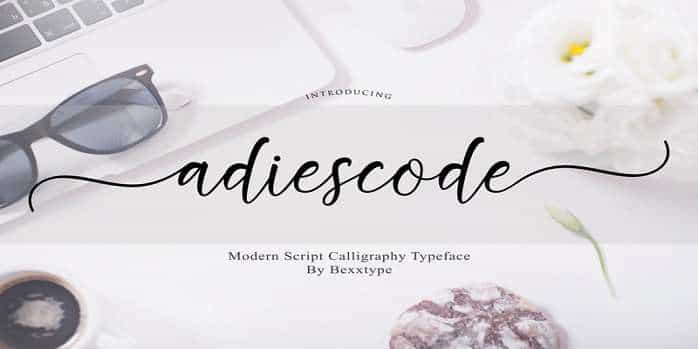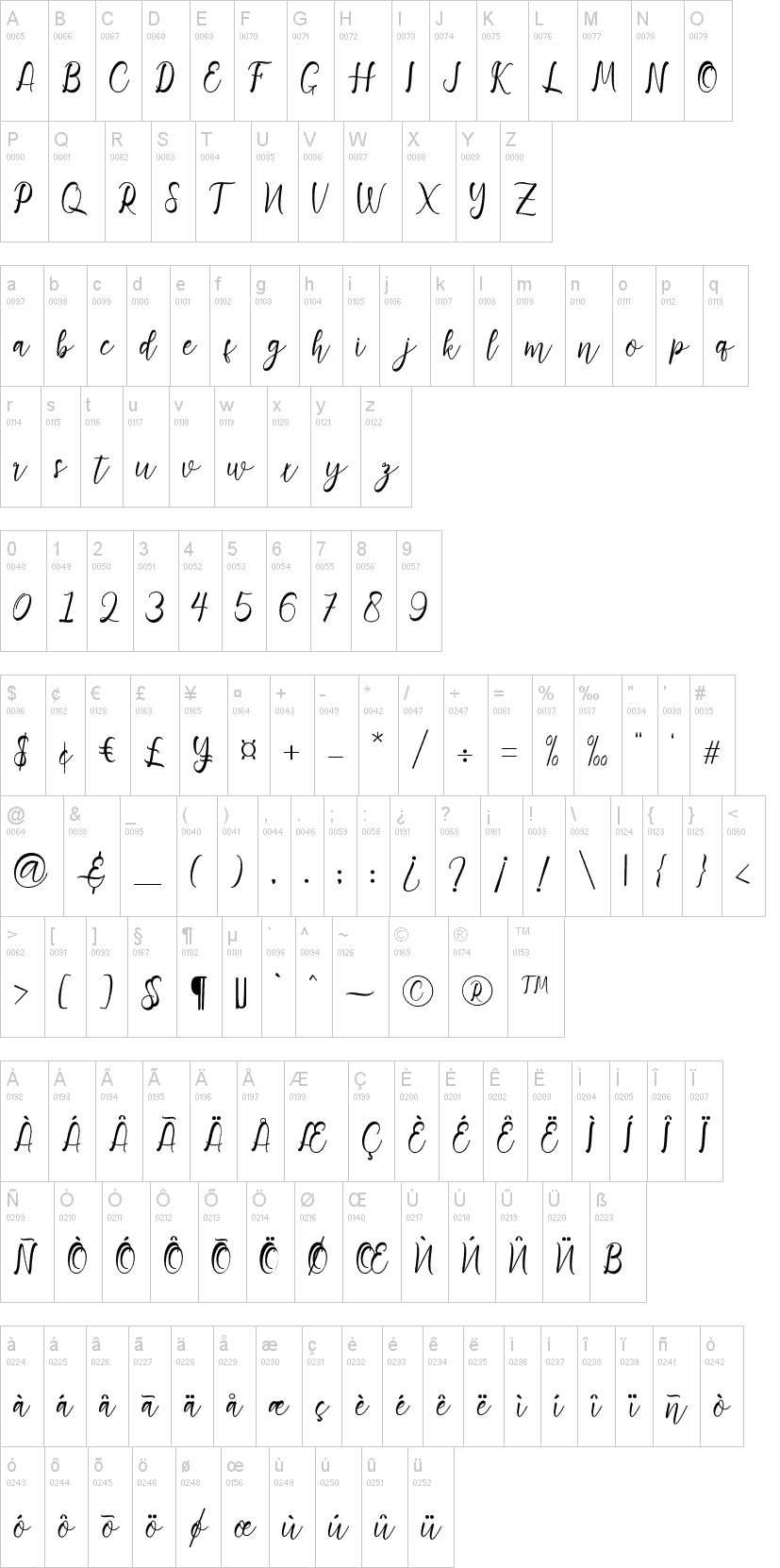
Introducing Adiescode Script. Adiescode Script is a new fresh & modern script with a handmade calligraphy style, decorative characters and a dancing baseline. That lovely for invitation like greeting cards, branding, business card, quotes, poster and many other things. Adiescode Script has been designed with a total of 518 characters. The other characters were grouped into several Open Type features including; Swash, Stylistic sets, stylistic alternates, contextual alternates.